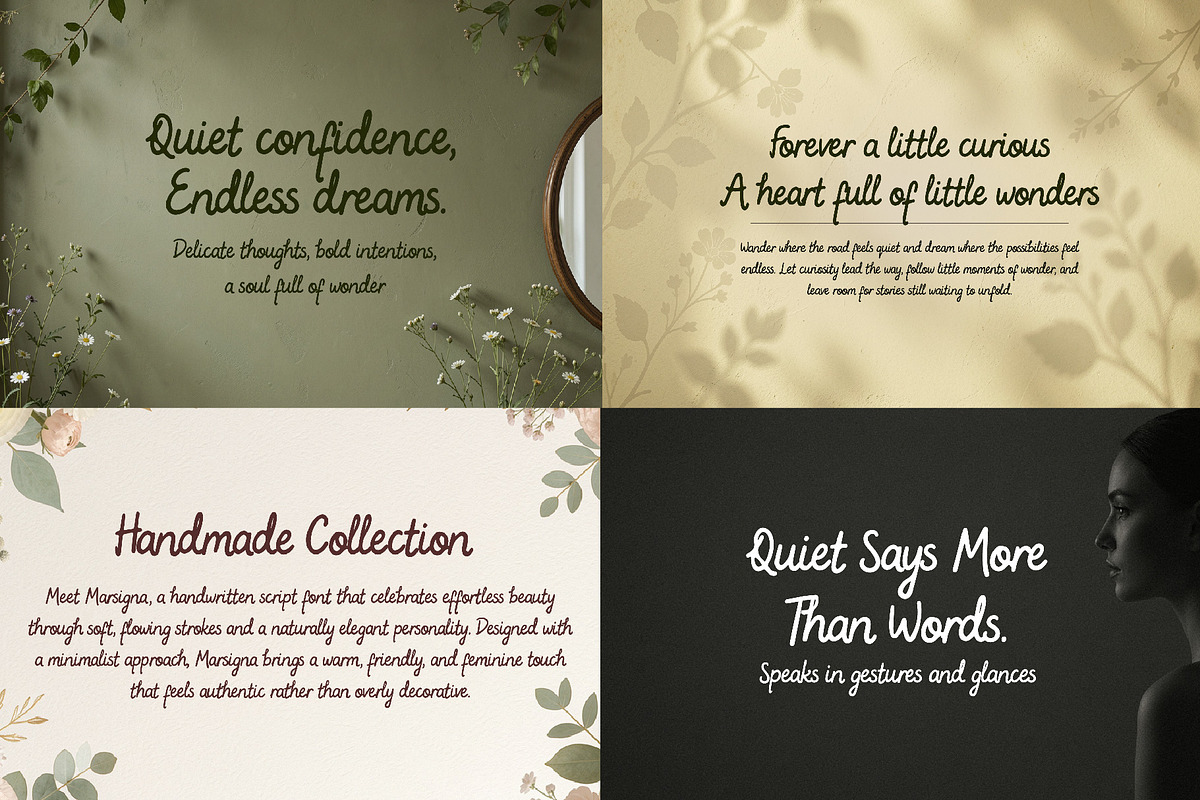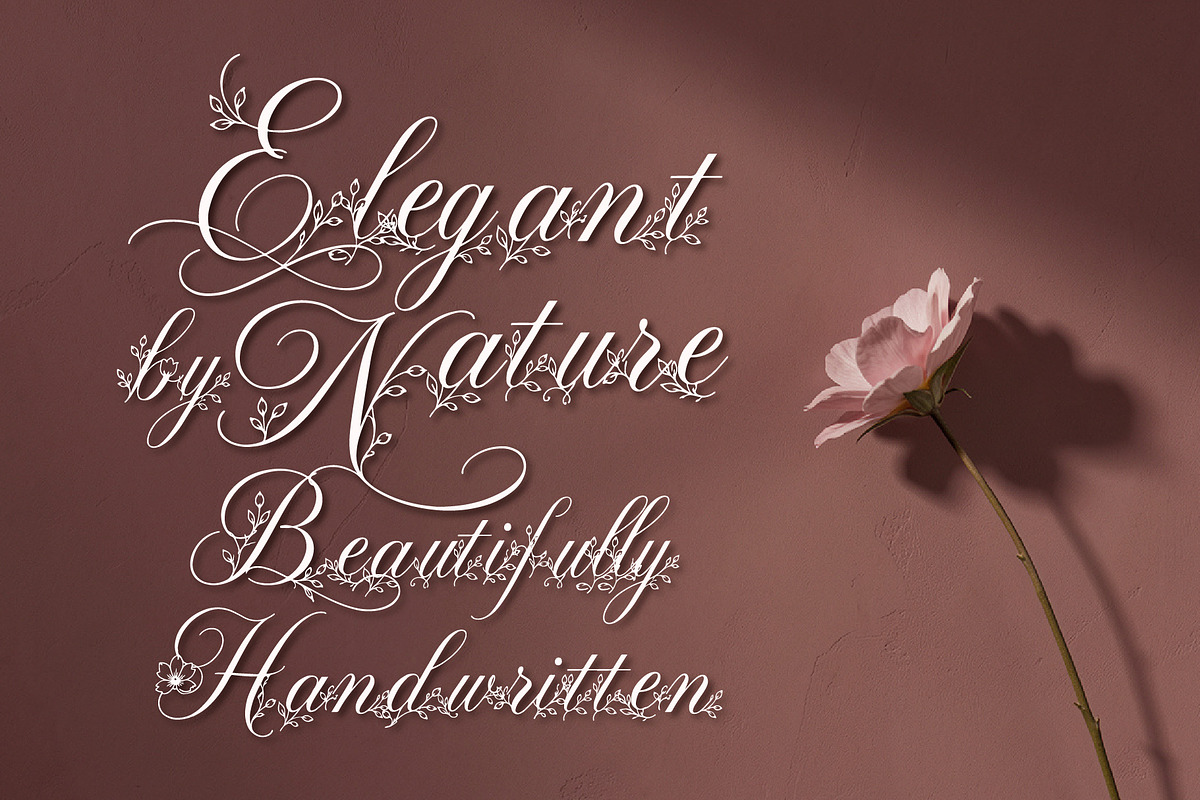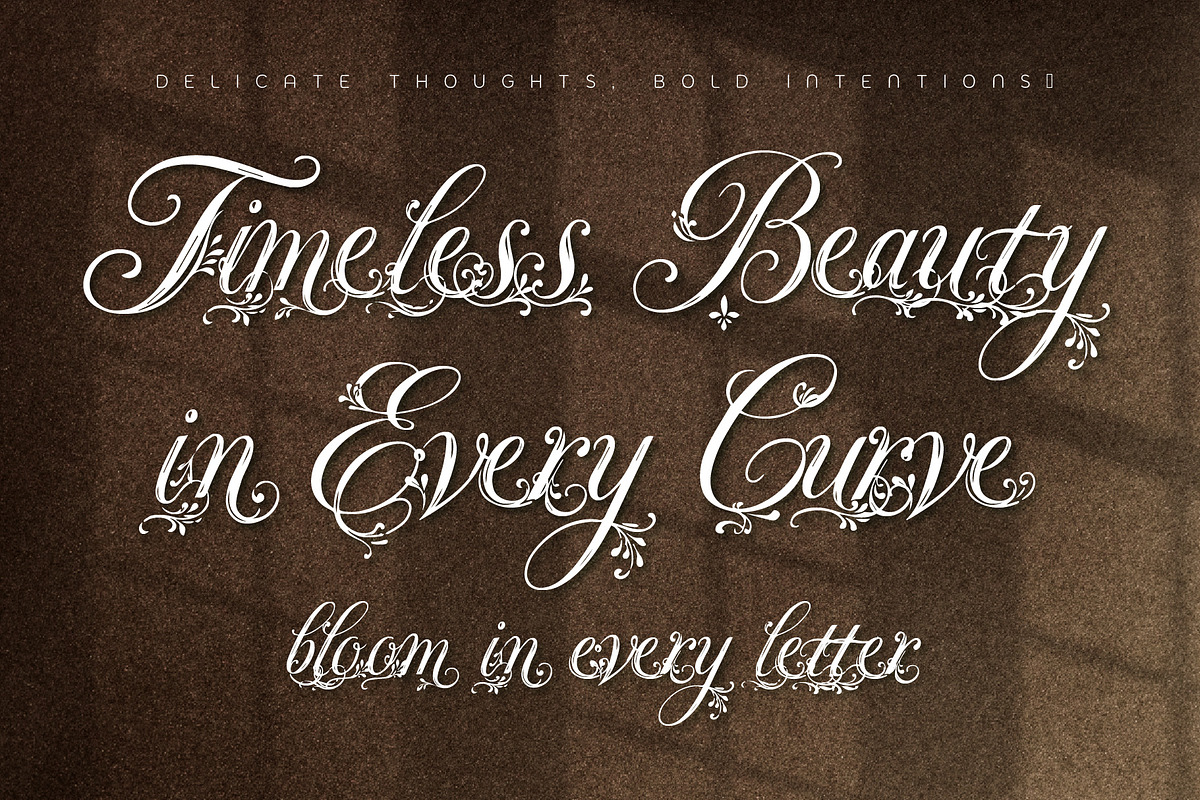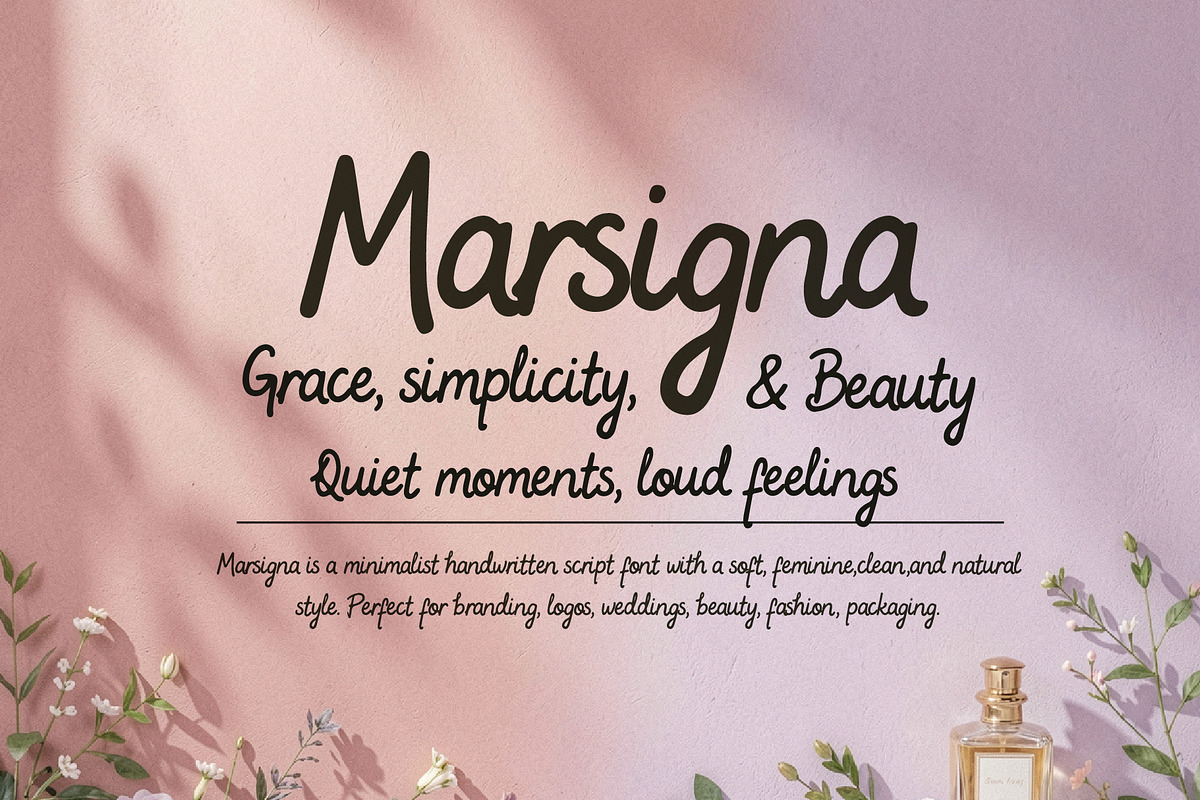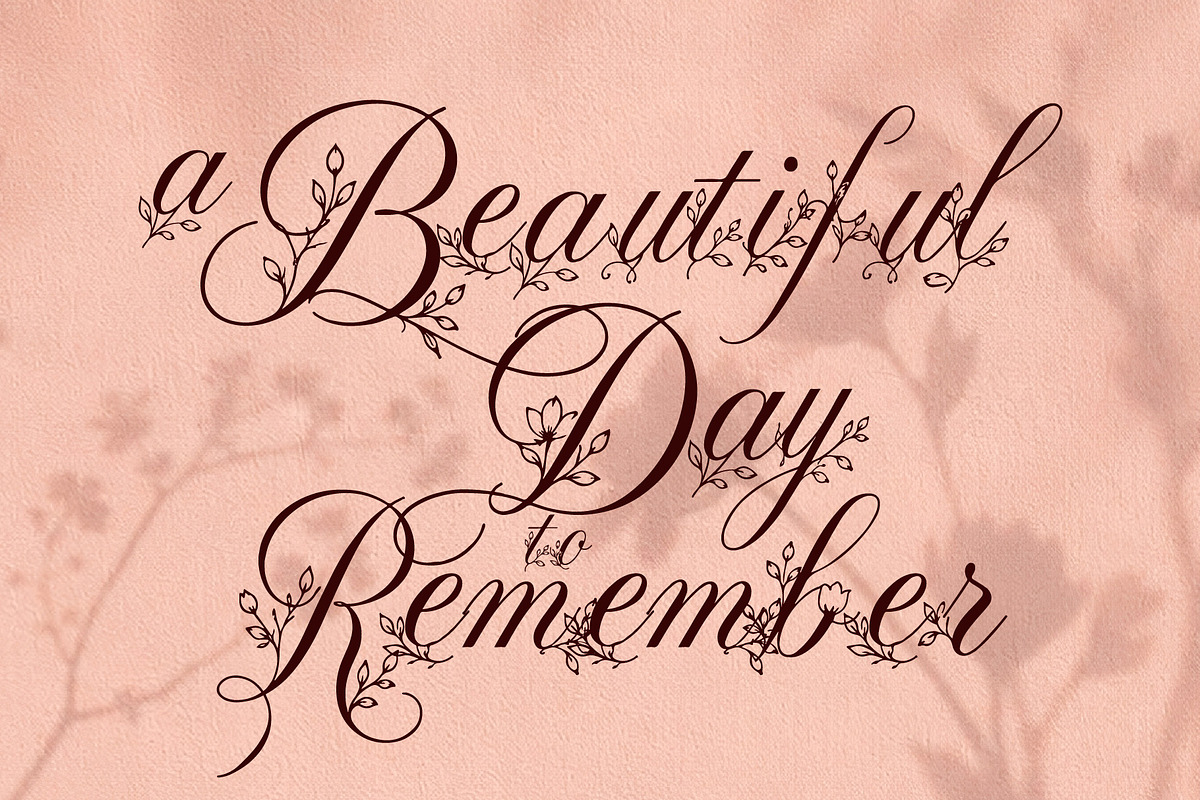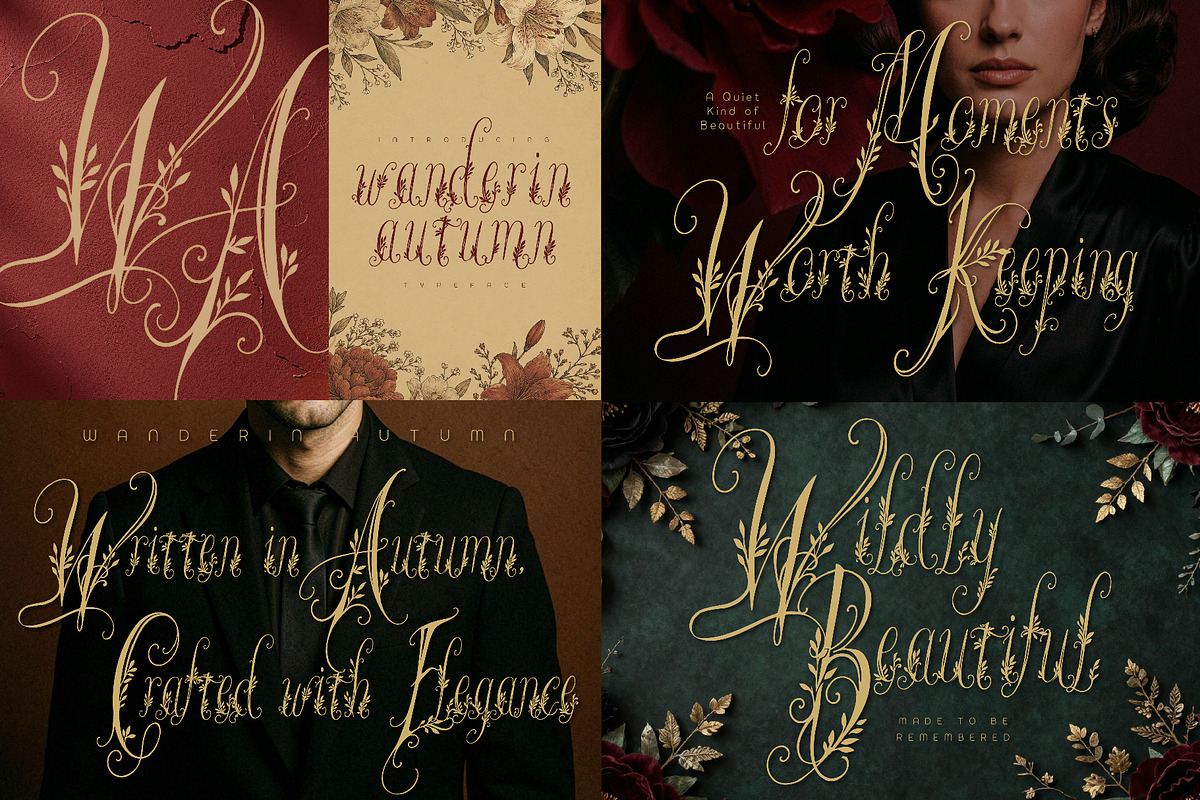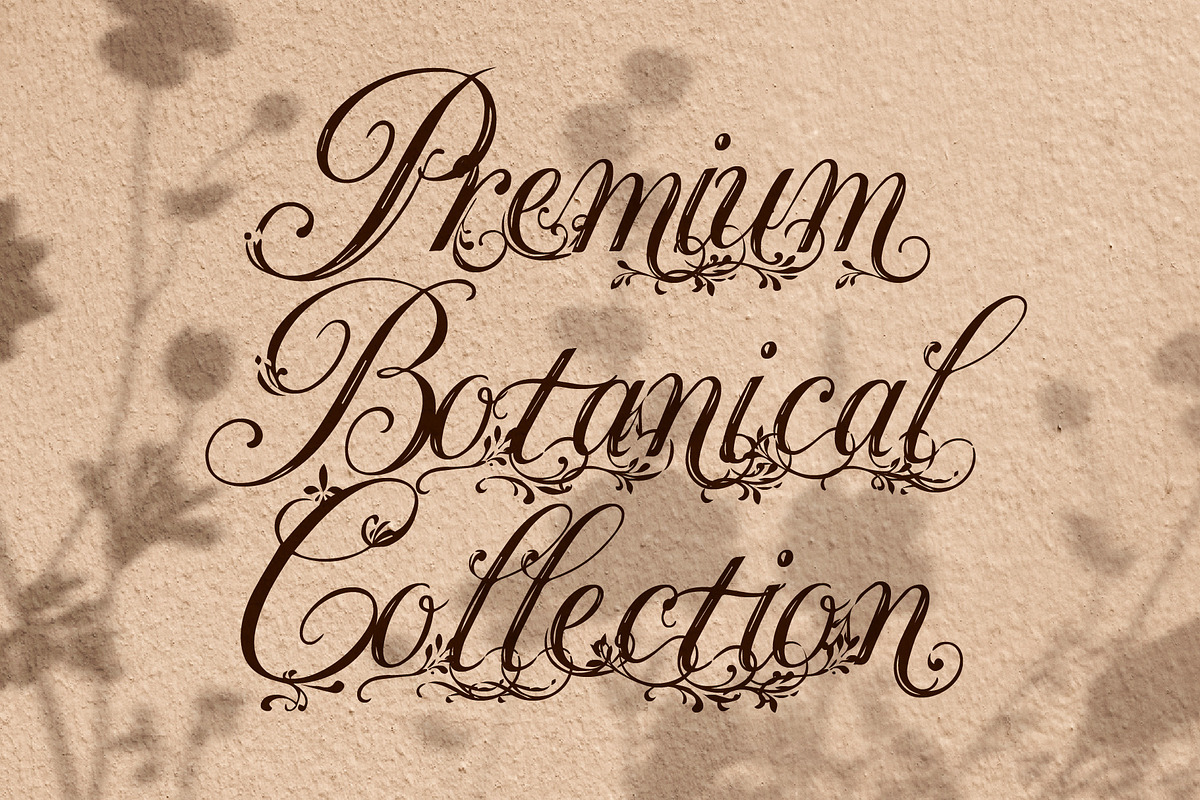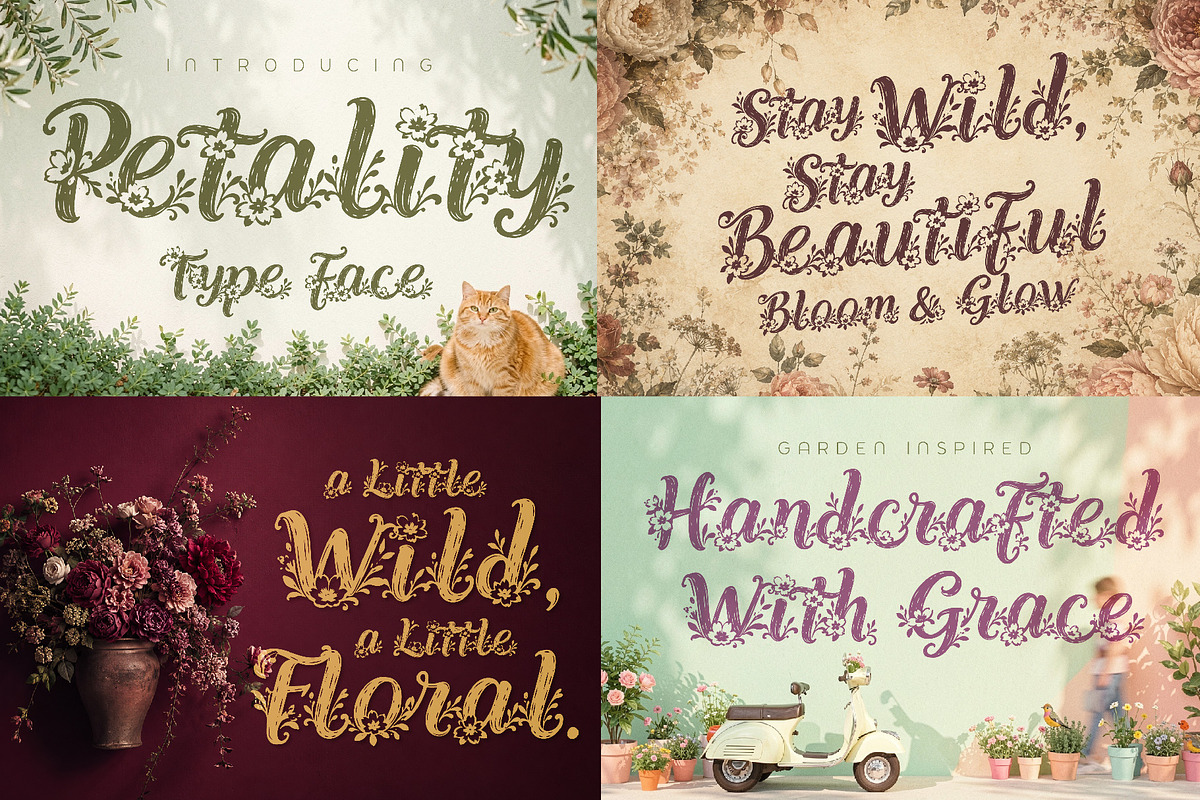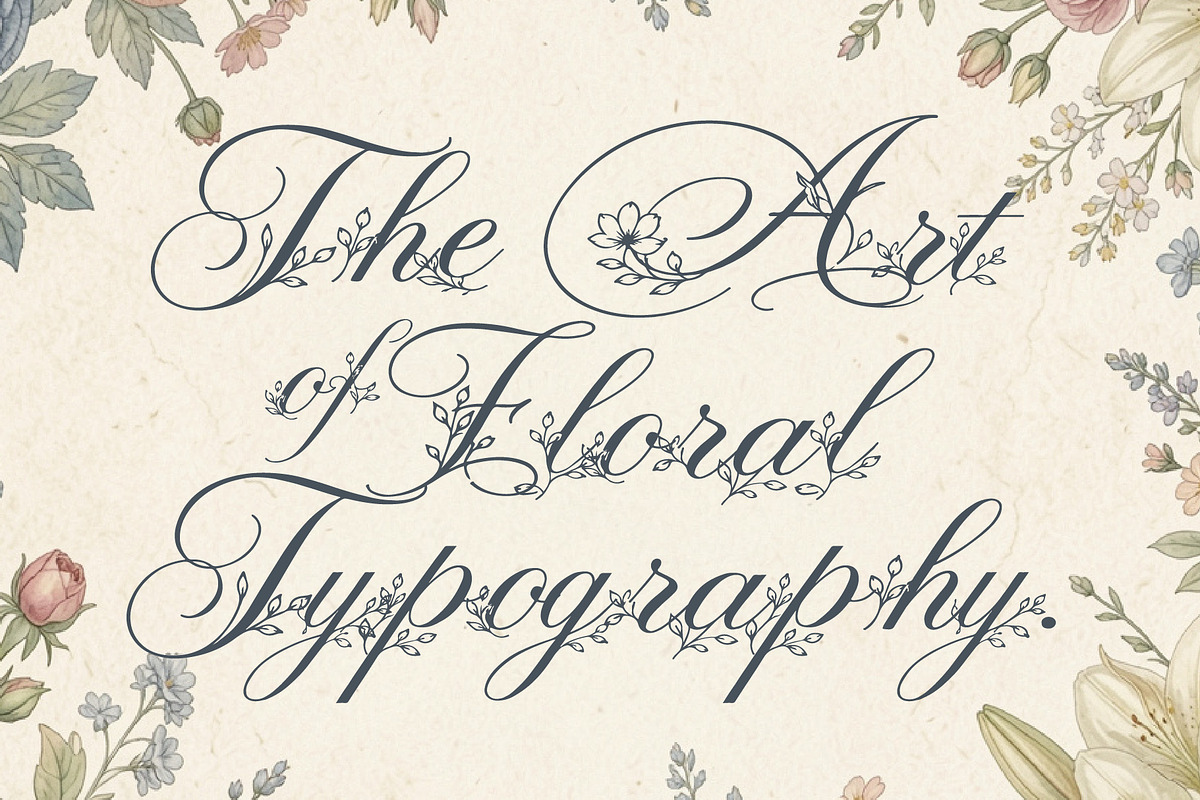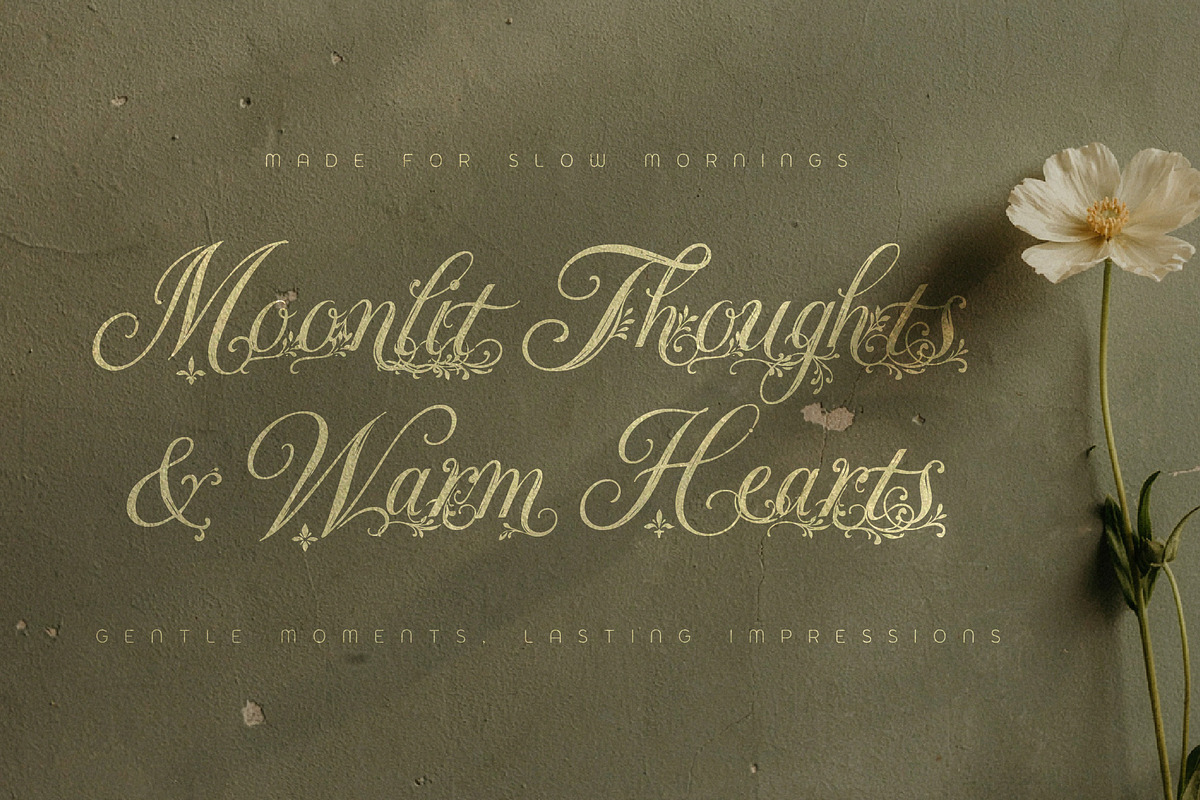
FLORAL DECORATIVE FONT COLLECTION
BOTANICA FONT DROP
10 FLORAL & BOTANICAL FONTS + 1 BONUS HANDWRITTEN FONT
Bring a little more bloom, charm, and handmade character to your designs with Botanica Font Drop - a curated collection of 10 floral and botanical fonts, plus 1 bonus handwritten font.
From elegant floral scripts and delicate botanical lettering to rustic, whimsical, Japanese-inspired, and butterfly-decorated styles, this collection gives you plenty of options for branding, wedding stationery, packaging, quotes, invitations, social media, beauty projects, lifestyle designs, and more.
INCLUDED FONTS
01. MiRohlWay — Floral Elegant Script Elegant floral lettering with a premium artisan feel. https://creativemarket.com/Hypeworksco/292385798-MiRohlWay-Floral-Elegant-Script
02. HoneiMoylavi — Delicate Floral Script Soft, delicate floral script for romantic and feminine designs. https://creativemarket.com/Hypeworksco/292385336-HoneiMoylavi-Delicate-Floral-Script
03. Alverose — Secret Garden Script A charming garden-inspired script with an elegant botanical touch. https://creativemarket.com/Hypeworksco/292299664-Alverose-Secret-Garden-Script
04. Ornavelle — Bloom Beautifully Decorative floral lettering made for beautiful, expressive projects. https://creativemarket.com/Hypeworksco/292334245-Ornavelle-Bloom-Beautifully
05. Petality — Whimsical Bloom Playful and whimsical lettering with a blooming floral personality. https://creativemarket.com/Hypeworksco/292346377-Petality-Whimsical-Bloom
06. WynsteraQalis — Decorative Floral Font Decorative botanical lettering with a distinctive handmade character. https://creativemarket.com/Hypeworksco/292375364-WynsteraQalis-Decorative-Floral-font
07. Aerisfly — Butterflies & Floral Floral lettering combined with delicate butterfly-inspired details. https://creativemarket.com/Hypeworksco/292355778-Aerisfly-Butterflies-Floral
08. Wanderin Autumn — Artisan Floral Font Artisan floral lettering with a warm, organic handmade feel. https://creativemarket.com/Hypeworksco/292367967-Wanderin-Autumn-Artisan-Floral-font
09. WindeRums — Rustic Floral Script Rustic handwritten lettering with a natural floral character. https://creativemarket.com/Hypeworksco/292394197-WindeRums-Rustic-Floral-Script
10. SumiBlossom — Japanese Art Font An artistic botanical style inspired by Japanese aesthetics. https://creativemarket.com/Hypeworksco/292370758-SumiBlossom-Japanese-Art-Font
BONUS FONT
11. Marsigna — Simple Feminine Timeless A minimalist handwritten signature style, perfect for subheadlines, supporting copy, and simple feminine branding. https://creativemarket.com/Hypeworksco/292339039-Marsigna-Simple-Feminine-Timeless